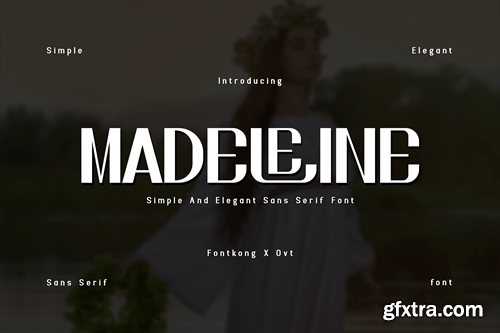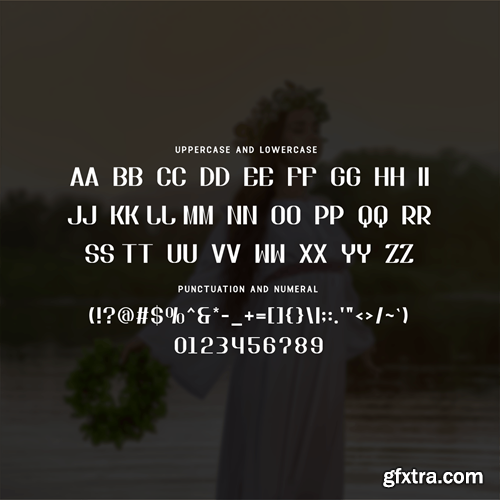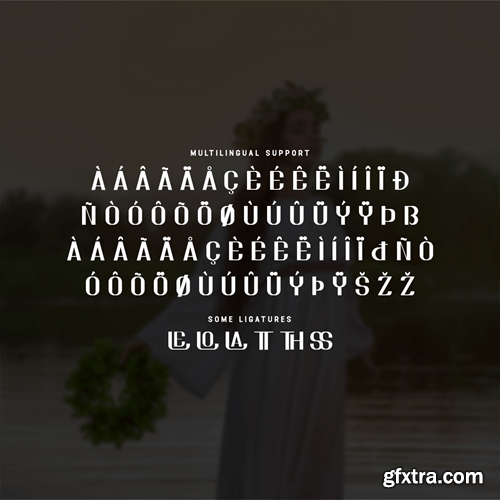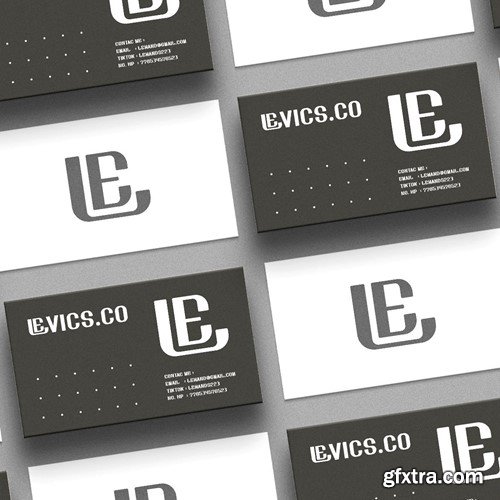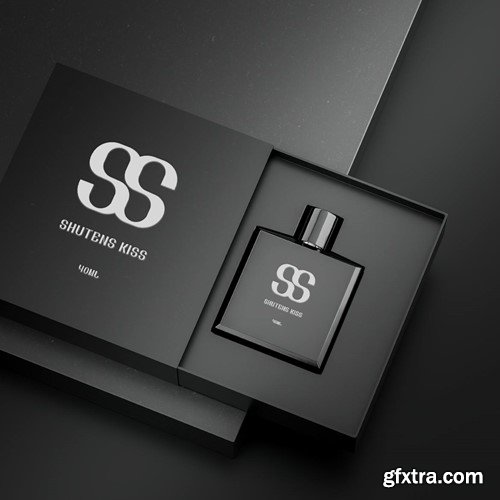
Madeleine - Simple and Elegant Sans Serif Font Introducing "Madeleine," a sans serif font that embodies the essence of refined simplicity and timeless elegance. With its clean lines and understated charm, Madeleine adds a touch of sophistication to any design project. You will receive the font files in TTF, OTF, and WOFF formats Crafted with attention to detail, Madeleine strikes the perfect balance between simplicity and elegance. Whether you're creating branding materials, editorial layouts, or digital designs, this font exudes professionalism and grace. Featuring a full range of characters, including uppercase and lowercase letters, numbers, and punctuation marks, Madeleine offers versatility and flexibility for all your creative needs. Its clean and modern aesthetic ensures readability and visual appeal across various applications. Elevate your typography to new heights with the understated beauty and timeless sophistication of Madeleine, where simplicity reigns supreme.